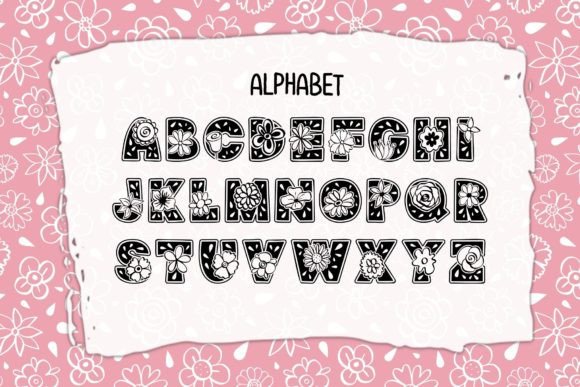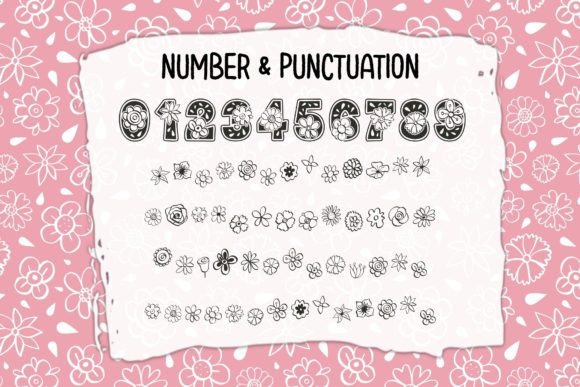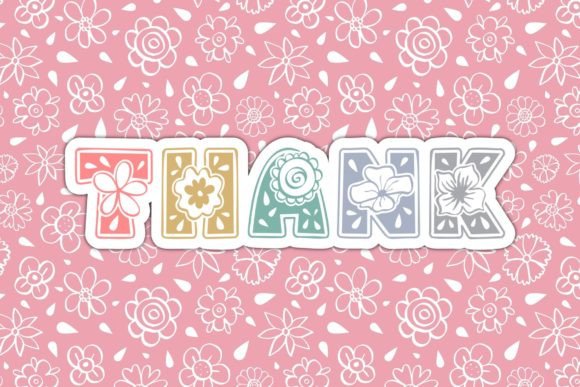
Hana Font: The Perfect Decorative Font for Your Creative Projects
Are you a designer, crafter, or DIY enthusiast looking for a beautiful and versatile font to elevate your creative projects? Look no further than Hana Font! This lovely decorative font is perfect for logos, branding, social media, crafty DIY projects, and much more. In this article, we’ll dive into the world of Hana Font and explore its features, benefits, and uses.
What is Hana Font?
Hana Font is a decorative font designed to add a touch of elegance and whimsy to your creative projects. Its unique and intricate design makes it stand out from other fonts, making it perfect for projects that require a bit of personality. Whether you’re creating a logo, branding materials, or social media graphics, Hana Font is sure to make your designs shine.
Features of Hana Font
Hana Font comes with a range of features that make it a versatile and practical choice for designers and crafters. Some of its key features include:
- Unique and intricate design: Hana Font boasts a one-of-a-kind design that’s sure to grab attention.
- High-quality characters: The font includes a range of high-quality characters, ensuring that your designs look professional and polished.
- Easy to read: Despite its decorative nature, Hana Font is easy to read, making it perfect for use in a variety of applications.
- Scalable: Hana Font is highly scalable, allowing you to use it in projects of all sizes, from business cards to billboards.
Benefits of Using Hana Font
So why choose Hana Font for your creative projects? Here are just a few benefits of using this lovely decorative font:
- Adds personality to your designs: Hana Font’s unique design ensures that your projects stand out from the crowd and reflect your personality.
- Perfect for branding and logos: The font’s elegant and sophisticated design makes it perfect for use in logos and branding materials.
- Great for social media graphics: Hana Font’s decorative nature makes it perfect for use in social media graphics, such as Instagram posts and Facebook graphics.
- Ideal for crafty DIY projects: Whether you’re creating handmade cards, scrapbooking pages, or other DIY projects, Hana Font is a great choice.
Uses of Hana Font
Hana Font is a versatile font that can be used in a wide range of applications, including:
- Logos and branding: Use Hana Font to create a unique and memorable logo for your business or brand.
- Social media graphics: Add a touch of personality to your social media graphics with Hana Font.
- Crafty DIY projects: Use Hana Font to add a decorative touch to your handmade cards, scrapbooking pages, and other DIY projects.
- Stationery and invitations: Hana Font is perfect for use in stationery and invitations, adding a touch of elegance and sophistication.
Tips for Using Hana Font
Here are a few tips for getting the most out of Hana Font:
- Use it sparingly: While Hana Font is a beautiful font, it can be overwhelming if used too much. Use it sparingly to add a touch of personality to your designs.
- Pair it with other fonts: Hana Font pairs well with other fonts, so don’t be afraid to experiment with different combinations.
- Experiment with colors: Hana Font looks great in a range of colors, so experiment with different colors to find the perfect look for your project.
In conclusion, Hana Font is a lovely decorative font that’s perfect for designers, crafters, and DIY enthusiasts. Its unique and intricate design makes it stand out from other fonts, and its versatility ensures that it can be used in a wide range of applications. Whether you’re creating logos, branding materials, social media graphics, or crafty DIY projects, Hana Font is sure to elevate your designs and add a touch of personality. So why not give Hana Font a try today and see the difference it can make in your creative projects?